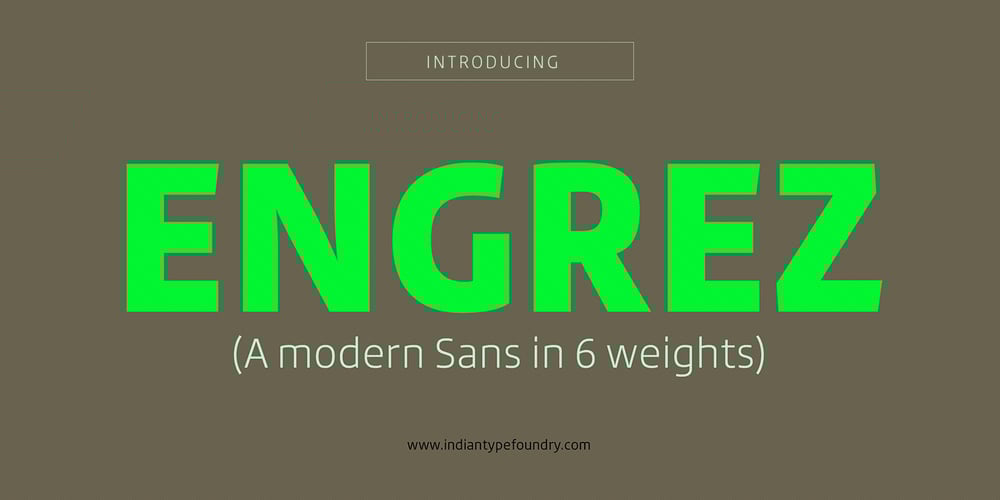
Engrez Font Family was designed by Satya Rajpurohit and published by Indian Type Foundry. Engrez contains 6 styles and family package options. Engrez is a thoroughly modern sans with a softened, simplified lowercase and sturdy, serious caps. Recommended for corporate branding and editorial exercises.